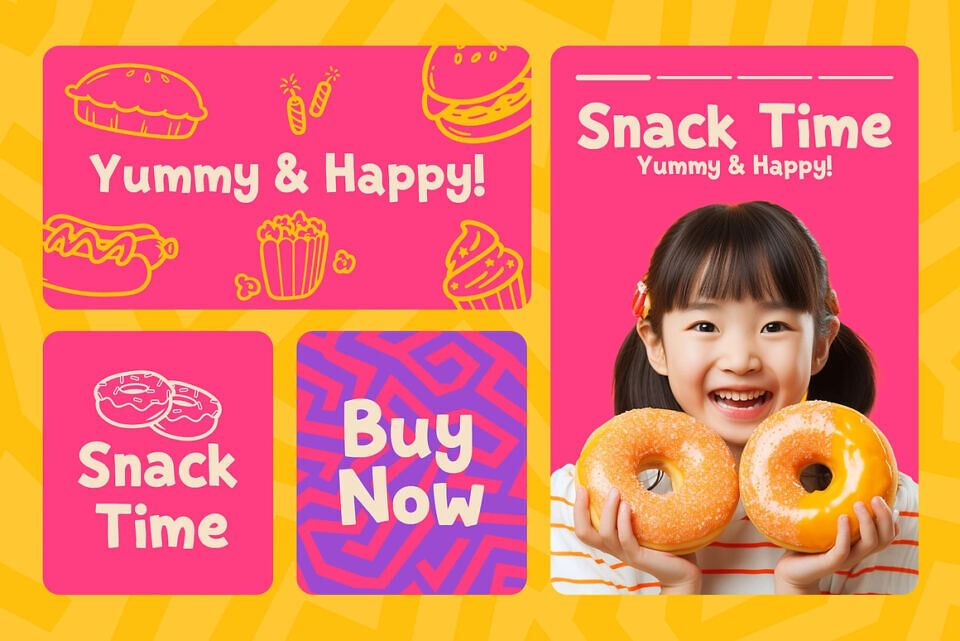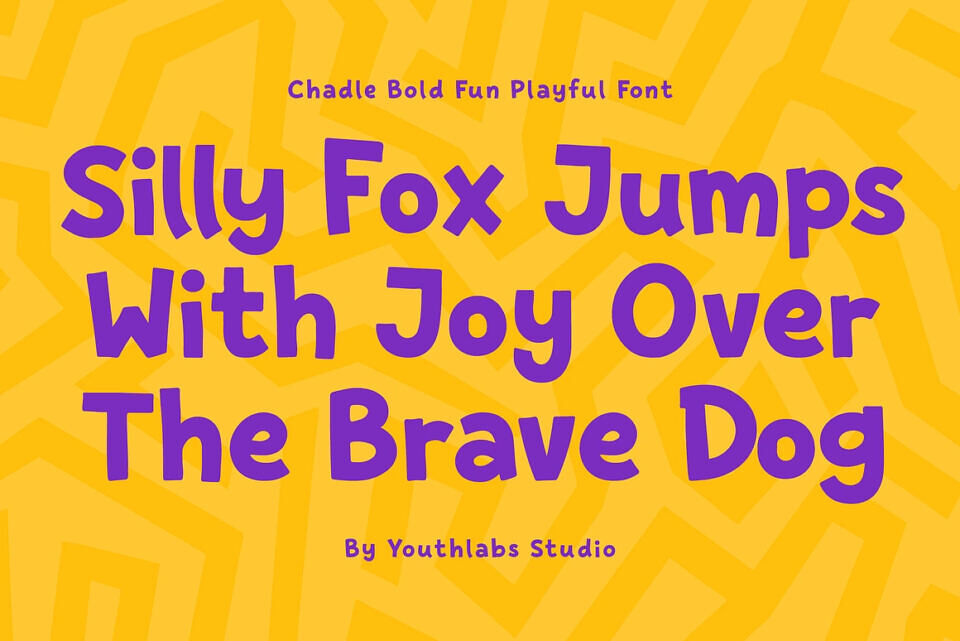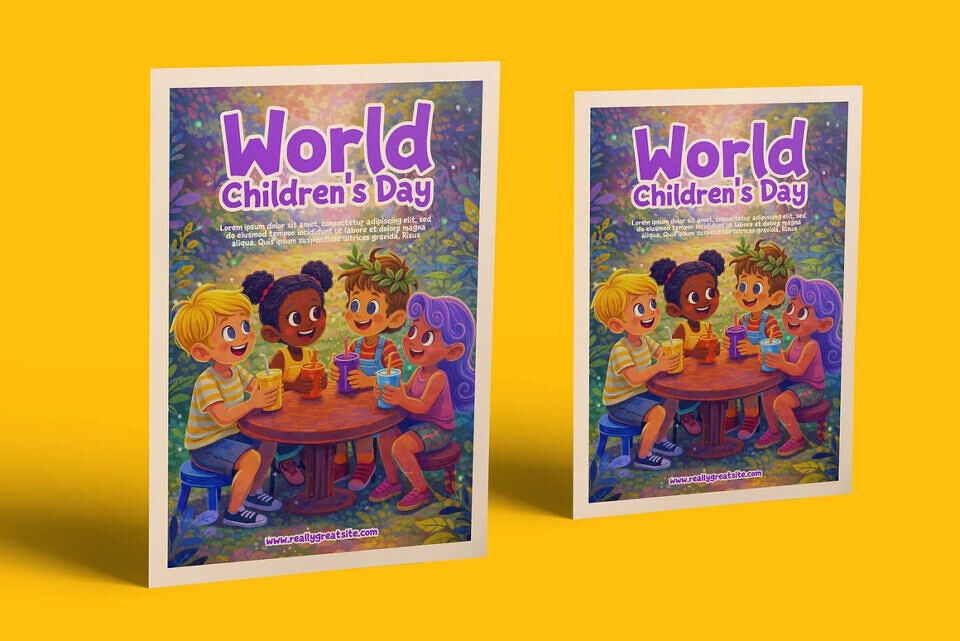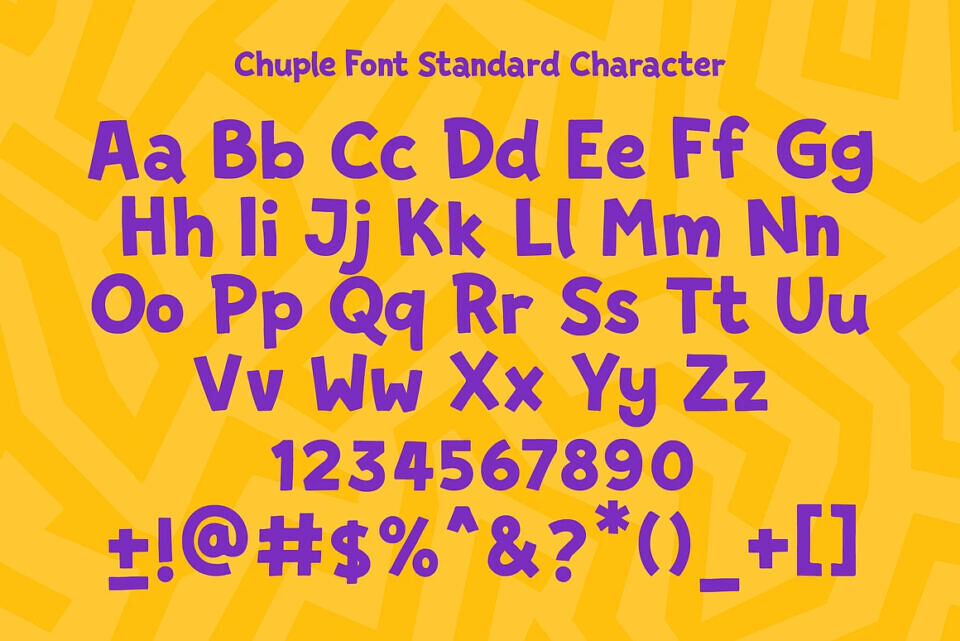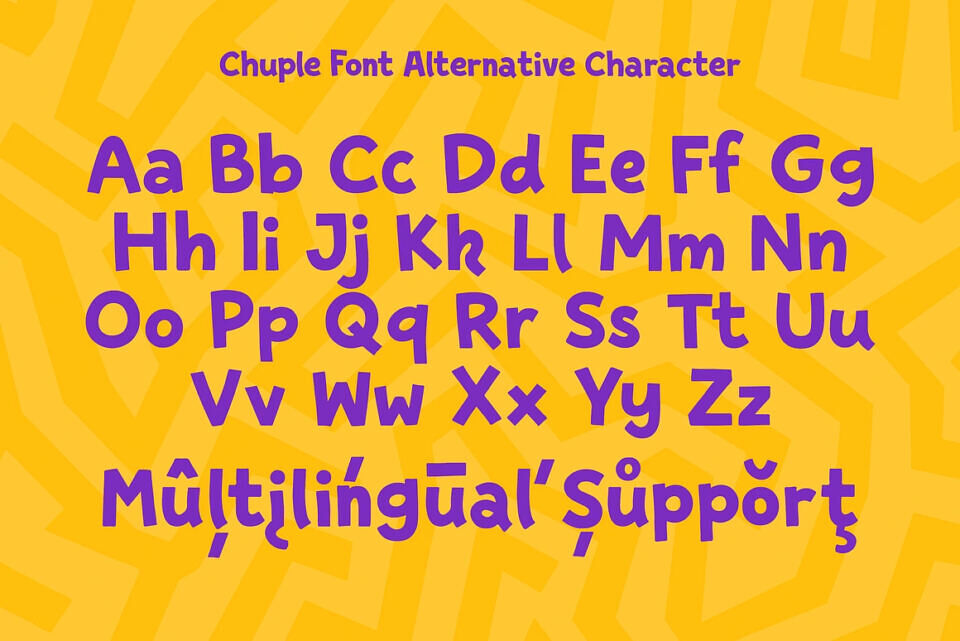
Chadle is a bold, fun, and playful display font designed to bring joy and energy to your designs. With chunky shapes, rounded curves, and a friendly personality, Chadle is perfect for kids branding, playful logos, packaging, posters, educational content, and cheerful headlines. Its vibrant style makes any message feel approachable, creative, and full of character.